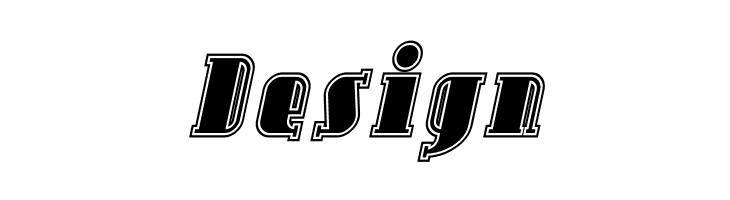
Maritime Tropical Double Font
- Font: Maritime Tropical Double
- Weight: Medium
A bold, decorative font with vintage appeal and strong vertical lines.